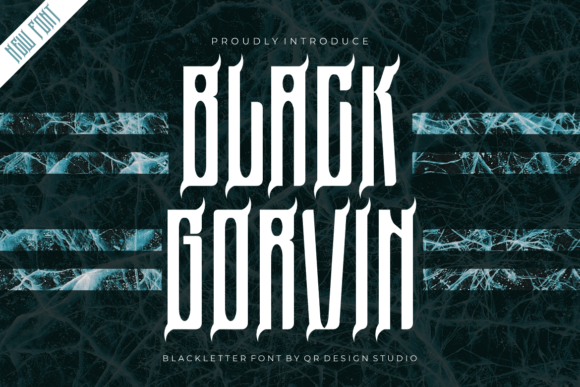
Introducing Black Gorvin: The Bold Blackletter Font You Need
I’ll never forget the design project that led me to discover Black Gorvin. I was working on a branding project for a medieval-themed restaurant, and I was struggling to find the perfect font that would transport my clients back in time. The brief was simple: create a logo that exuded authority, mystery, and a touch of old-world charm. I scoured the internet, tried out countless fonts, but none seemed to fit the bill. That was until I stumbled upon Black Gorvin.
The Design Moment: When Fonts Make or Break a Project
As I started experimenting with Black Gorvin, I knew I had found the one. Its bold, Gothic-inspired design and sharp, angular edges instantly added a sense of drama and sophistication to my design. The font’s timeless aesthetic made it perfect for creating a sense of authority, which was exactly what my client needed. In that moment, I realized that sometimes, all it takes is the right font to elevate your design from good to great.
An Honest Review: The Good, the Bad, and the Quirks
So, what do I love about Black Gorvin? Here are a few things that make it stand out:
• ✨ Bold and attention-grabbing: Black Gorvin is not for the faint of heart. Its bold design demands attention and makes a statement.
• ✅ Timeless aesthetic: The font’s Gothic-inspired design is reminiscent of medieval times, but its clean lines and sharp edges make it feel modern and fresh.
• ✅ Versatile: Black Gorvin works beautifully in a variety of contexts, from branding and logos to invitations and packaging.
And, like any font, it’s not without its quirks:
• 🤔 Limited use in body text: Due to its bold design, Black Gorvin is best used in headlines or titles. It’s not ideal for body text, as it can be overwhelming to read in large blocks.
• ⚠️ Kerning issues: As with any font, kerning can be a issue, especially when using Black Gorvin in large sizes. Make sure to adjust the kerning to ensure your text looks smooth and polished.
Black Gorvin was inspired by the great Gothic cathedrals of Europe. Its designer, a typography enthusiast, wanted to create a font that would evoke the sense of mystery and awe that these structures inspire. The result is a font that is both bold and elegant, perfect for designs that require a touch of old-world charm.
What is Black Gorvin? Black Gorvin is a bold, blackletter font with a Gothic-inspired design.
What is Black Gorvin best used for? Black Gorvin is best used for designs that require a sense of authority, mystery, and old-world charm, such as branding, logos, and invitations.
Can I use Black Gorvin for body text? No, Black Gorvin is best used in headlines or titles. Its bold design makes it difficult to read in large blocks.